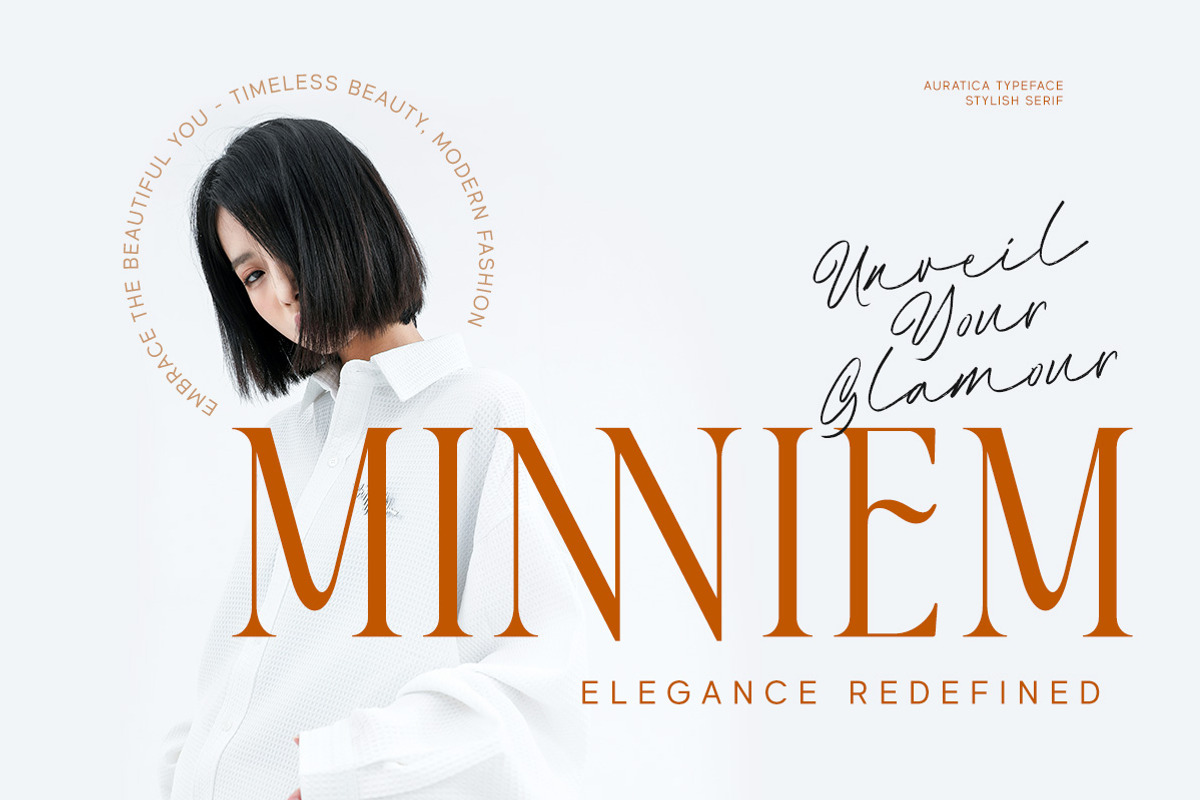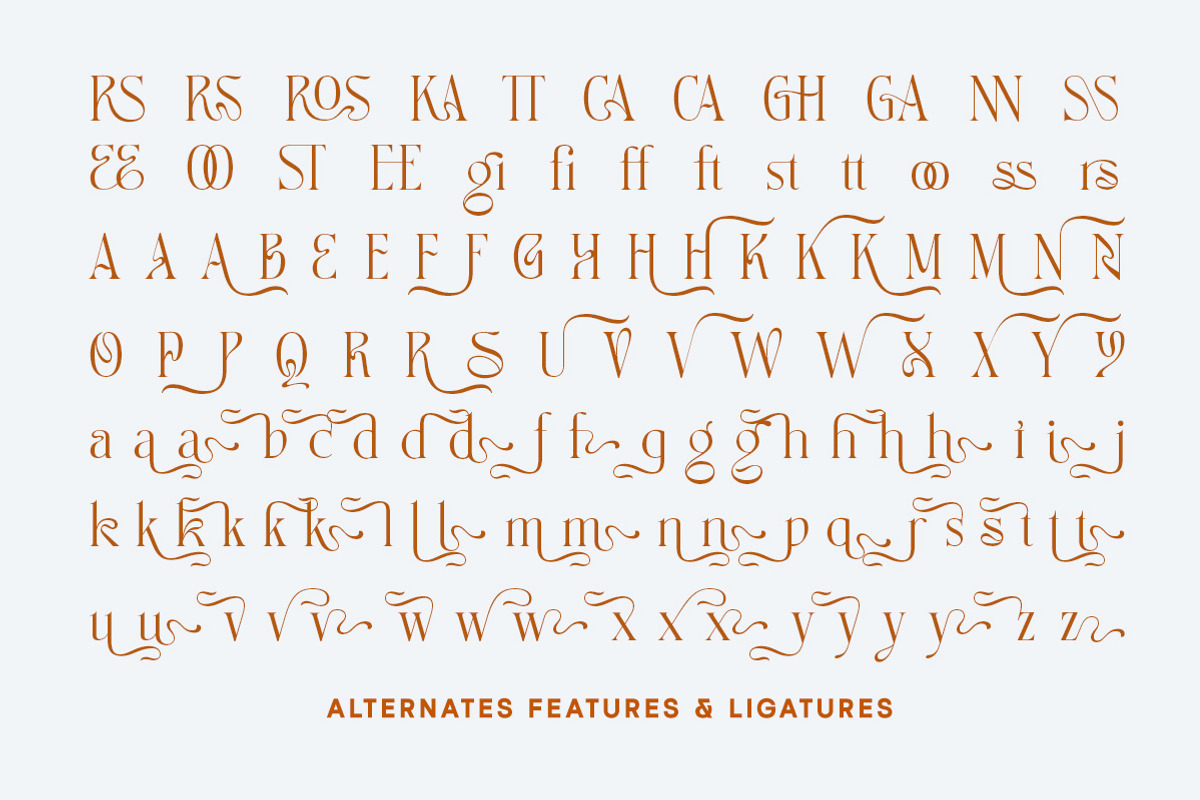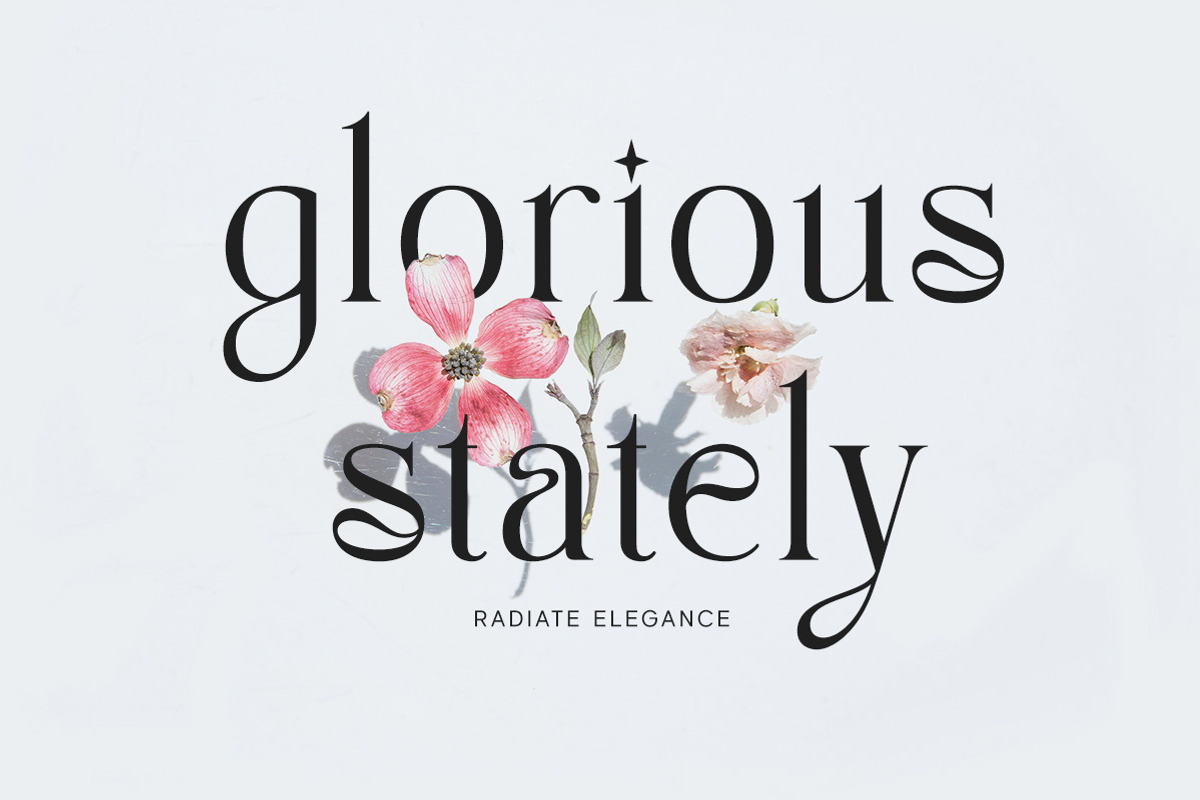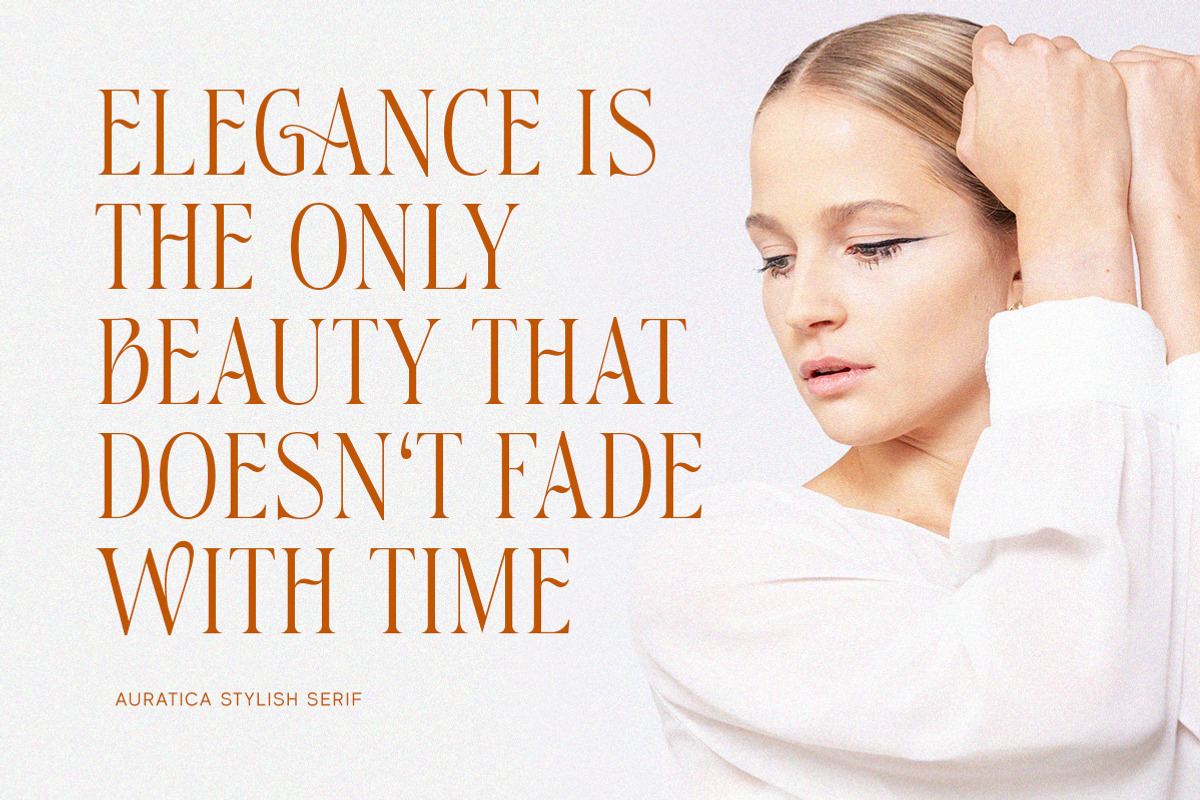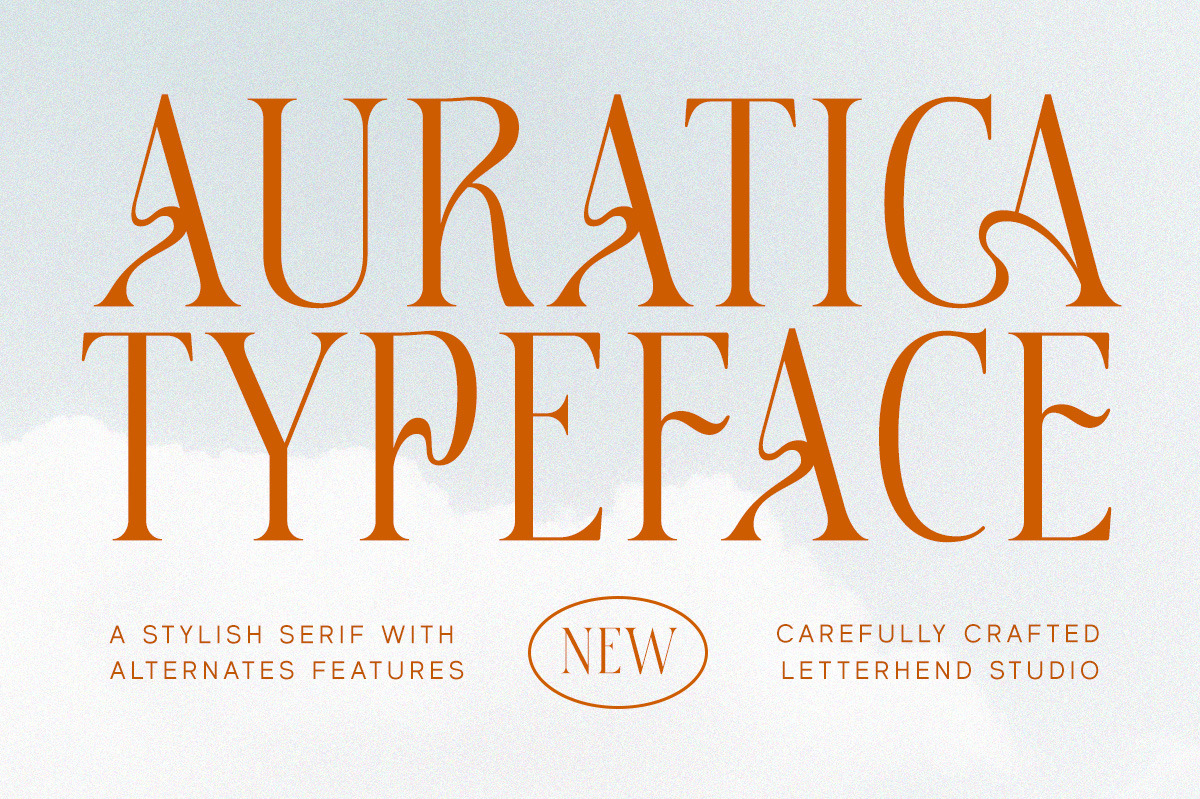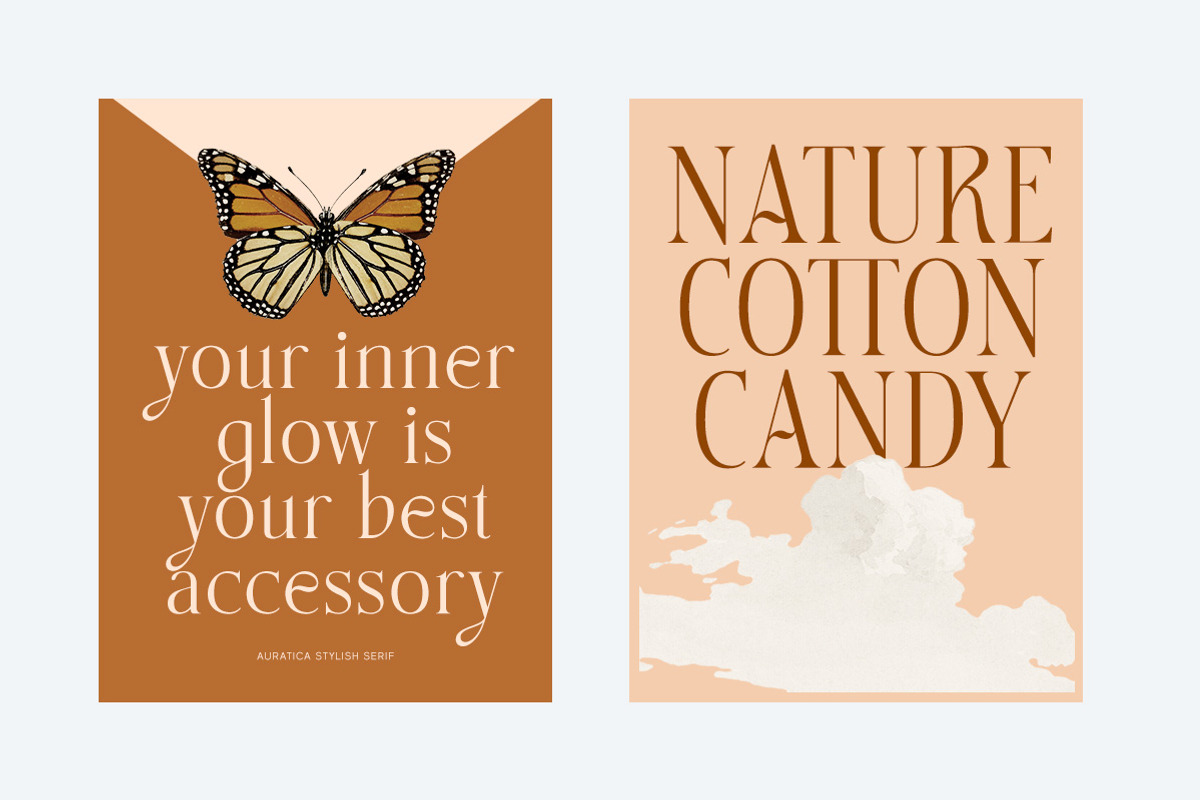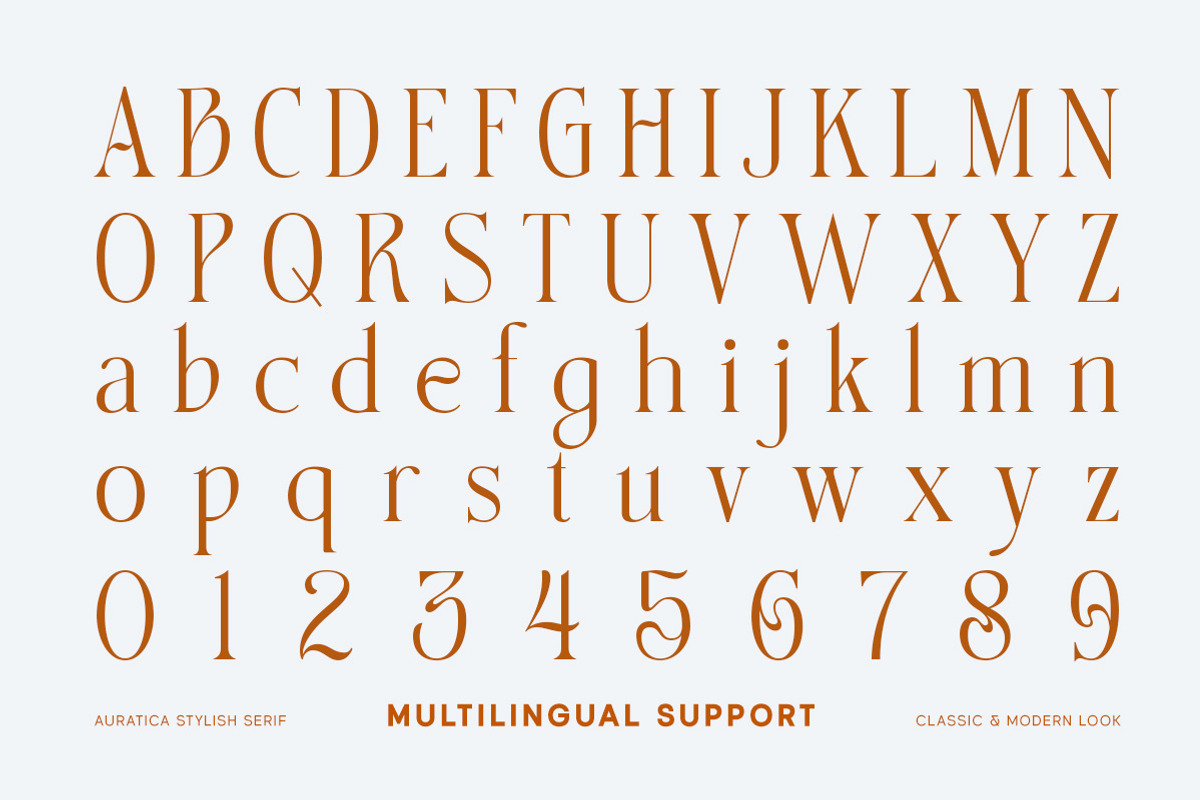
Auratica Typeface
Auratica Typeface is a stylish new serif font that lets you experiment with alternative characters, adding a marvelous touch to your designs.This font perfectly made to be applied especially in logo, and the other various formal forms such as invitations, labels, logos, magazines, books, greeting / wedding cards, packaging, fashion, make up, stationery, novels, labels or any type of advertising purpose.